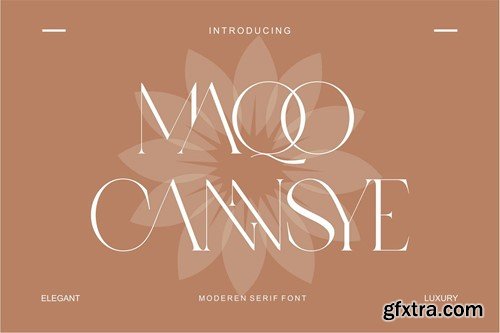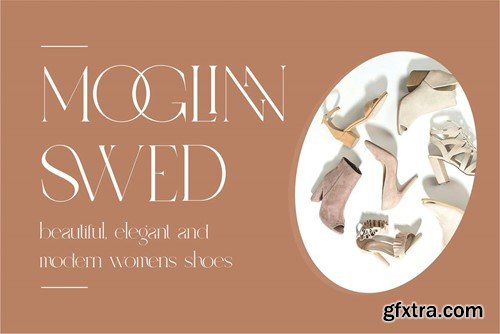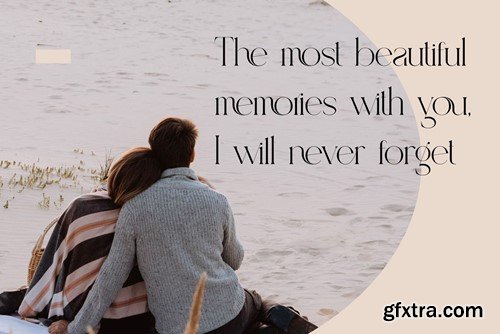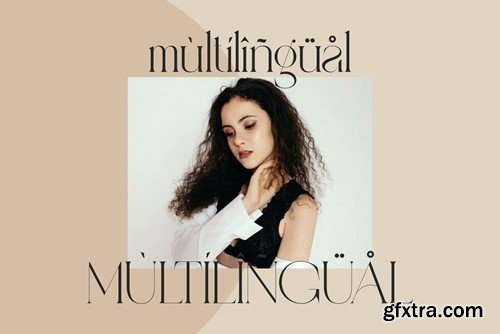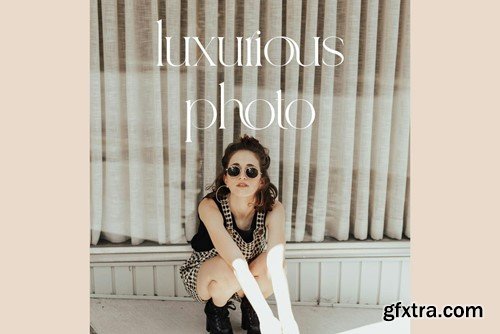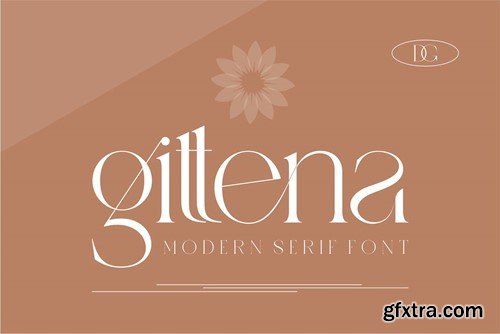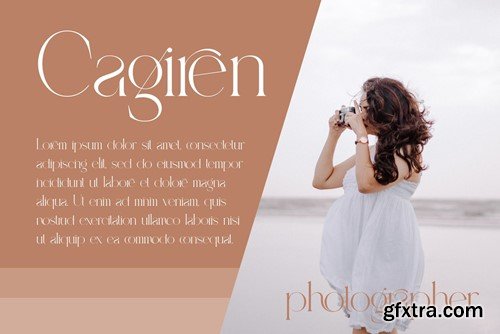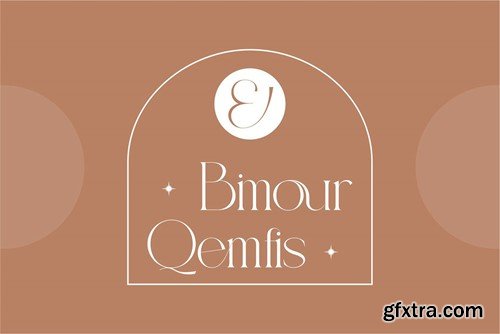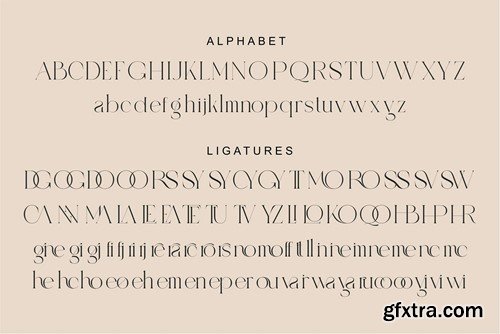
MAQOCANNSYE Serif Typeface
MAQOCANNSYE is a elegant and classy serif typeface – This font is both modern and nostalgic and works great for logos, magazine, social media. Already matched up and ready to be used together for your next design! For those of you who are needing a touch of elegant, stylish, classy, chic and modernity for your designs, this font was created for you!
MAQOCANNSYE was built with OpenType features and includes ligatures, numbers, punctuation, and it also supports other languages.